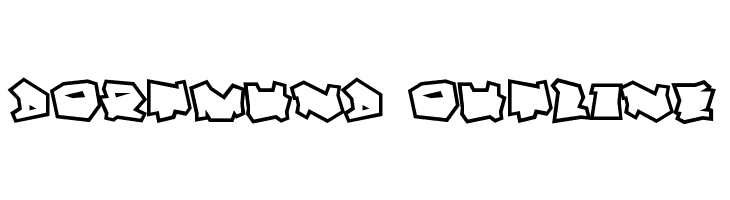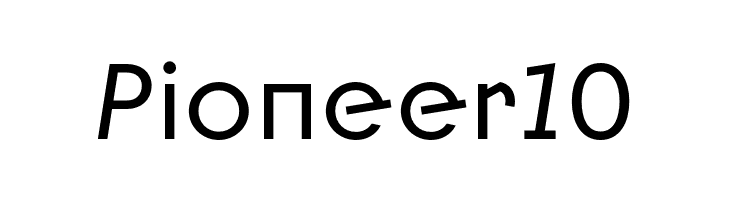
A modern, geometric font with bold uppercase and rounded lowercase letters.
A bold, graffiti-inspired outlined font with angular, geometric characters.
A playful and decorative font with a modern vintage style.
A playful, handwritten font with smooth, rounded edges and a casual style.
A bold, dynamic script font with a hand-drawn, energetic style.
A playful, italic script font with rounded, connected characters.
A playful and elegant script font with decorative flourishes.
A bold, impactful font with strong, thick strokes and a slightly condensed width.
A modern, clean sans-serif typeface with balanced proportions and uniform stroke width.
A playful, hand-drawn sketch-style font with a textured, artistic look.